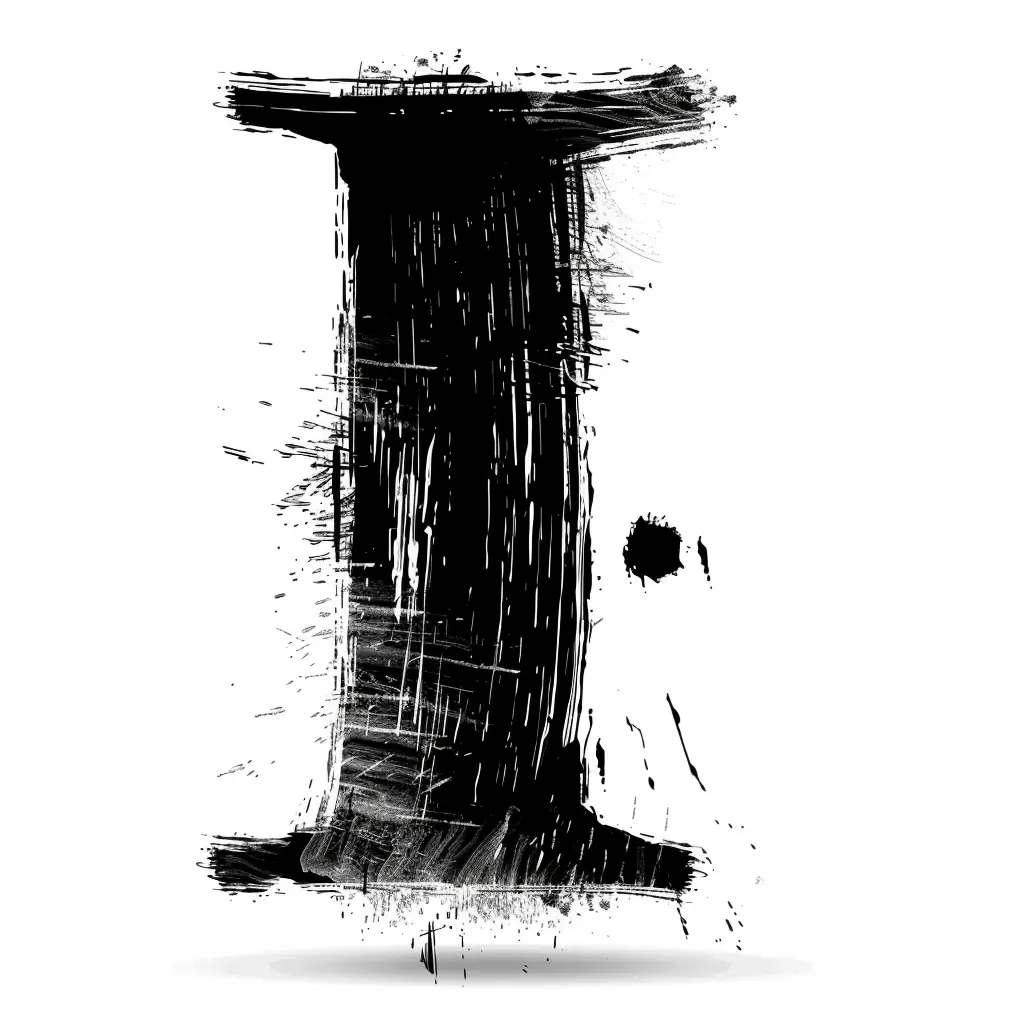
This image features a stylized, abstract representation of the letter "I," rendered in a bold, black brushstroke style with rough, textured edges and splatters. The design uses stark black and white contrast, with the letter’s form defined by dynamic, uneven lines and a small black dot (resembling a period) to its right. The overall aesthetic is artistic and expressive, emphasizing a raw, hand-painted or grunge-like visual effect.